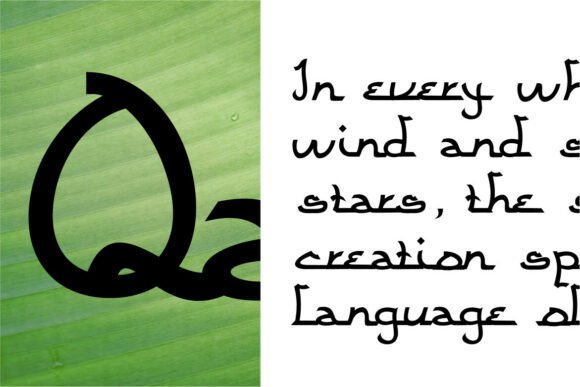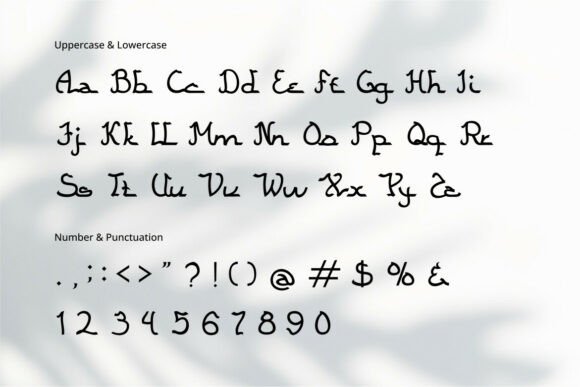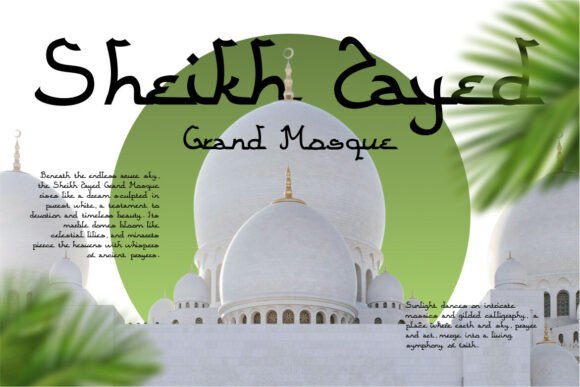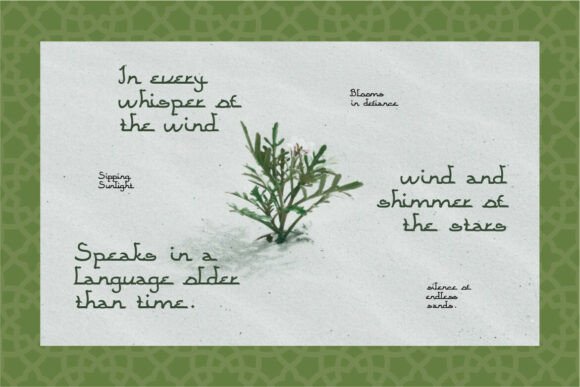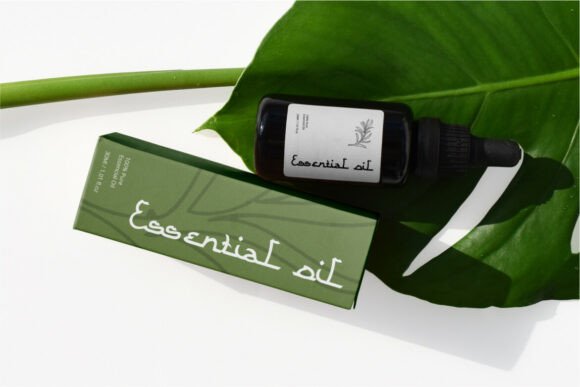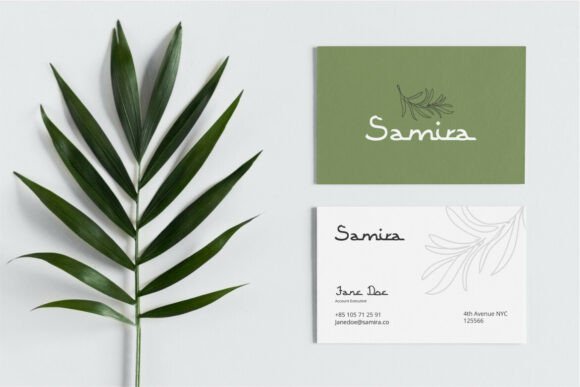
Introduction to Qamarina Font
Experience the elegance of Qamarina, an Islamic display font that emphasizes movement and grace.
Its elongated connections and rounded terminals create a โhand-letteredโ feel that remains modern and legible It is designed to feel welcoming and spiritual, bridging the gap between classical calligraphy and contemporary graphic design.